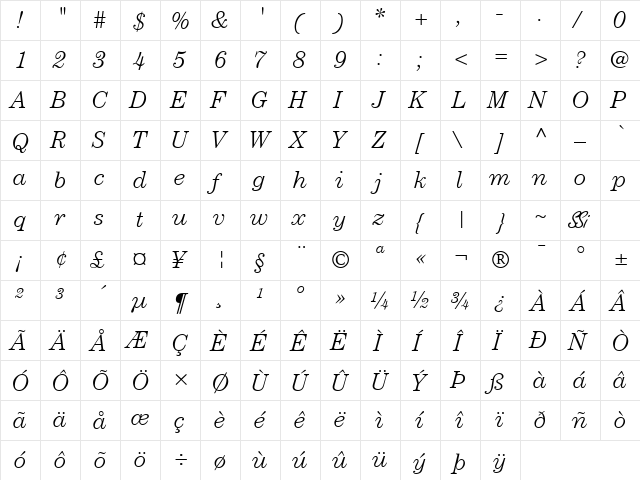
Century Light SSi Light Italic Font Preview
Century Light SSi Light Italic
Design Context for Century Light SSi Typeface
Century Light SSi is a composed and adaptable typeface that performs quietly and consistently across a wide range of design contexts. The dynamic lean of this cut emphasises speed and emphasis in any layout. Its slender proportions lend an understated elegance to any composition.